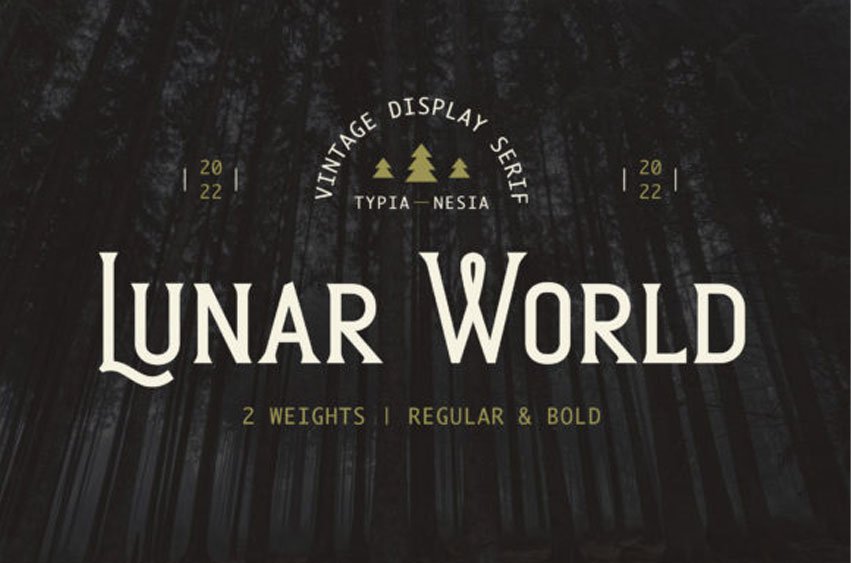
Lunar World Font
Lunar World Font is suitable for any design needs: logo, branding, modern advertising design, vintage garage design, adventure/mountain hiking brand, hardcore music, animation or movie, logos, retro summer poster quote, book/novel cover Title, editorial design, website/blog, card, and more.